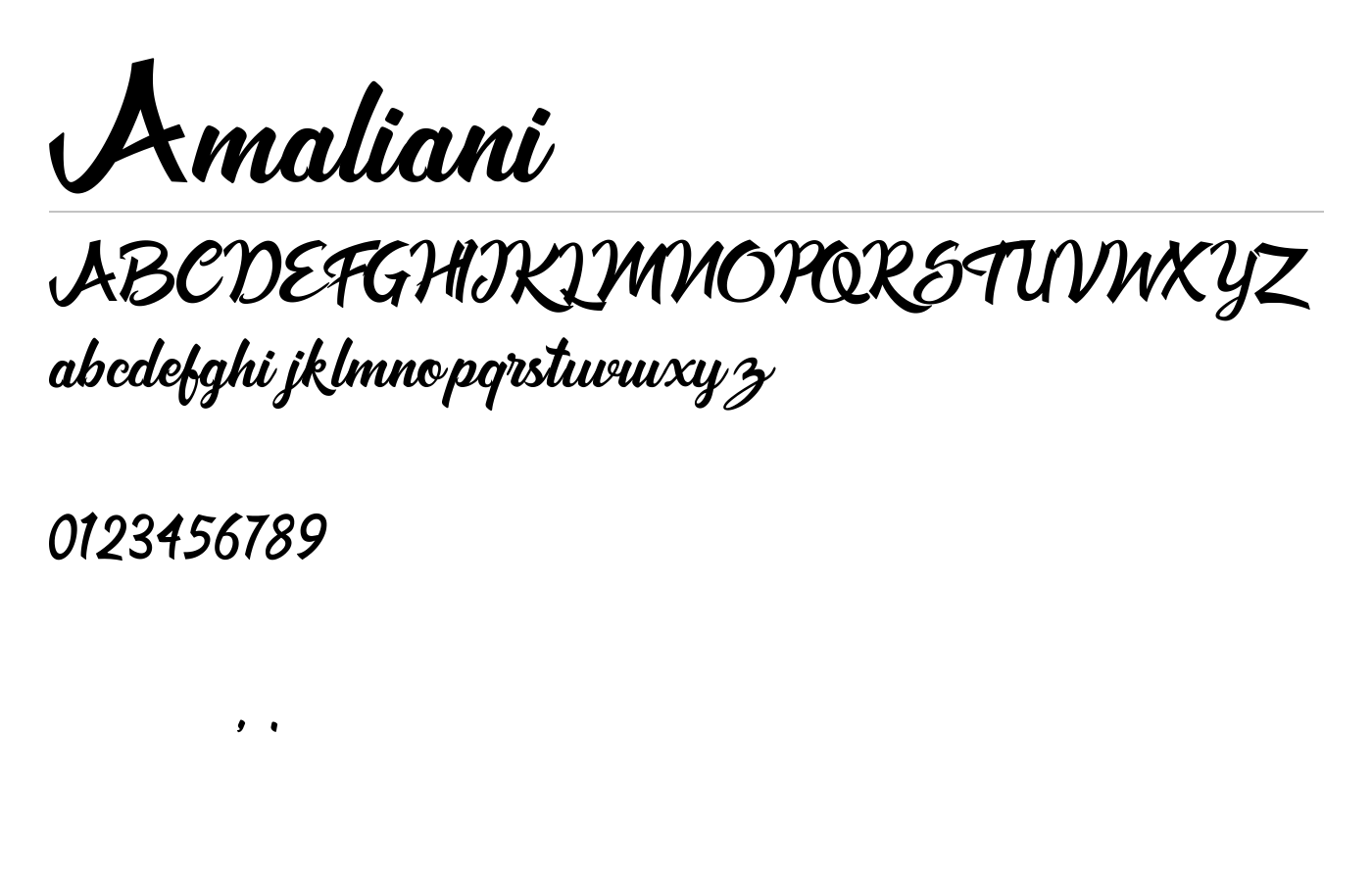
Amaliani is a stylish script font that features smooth, flowing strokes with moderate contrast, giving it an elegant yet approachable feel. Its italicized letterforms and distinctive uppercase characters add a touch of personality, making it ideal for branding, invitations, and creative projects that seek a sophisticated yet friendly vibe. This font works well for logos, packaging, and headlines where a cursive, hand-lettered touch enhances visual appeal.
Amaliani Font
About Amaliani Font